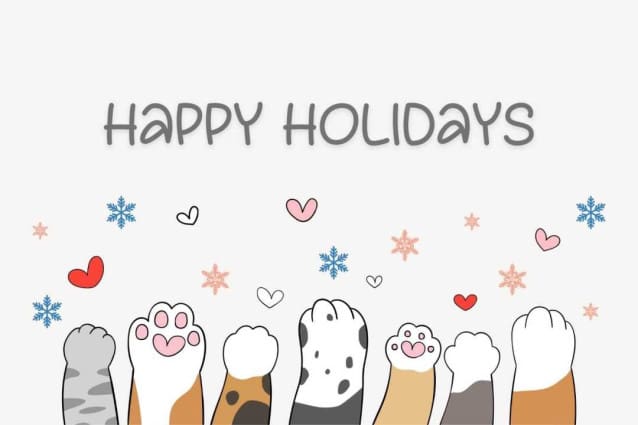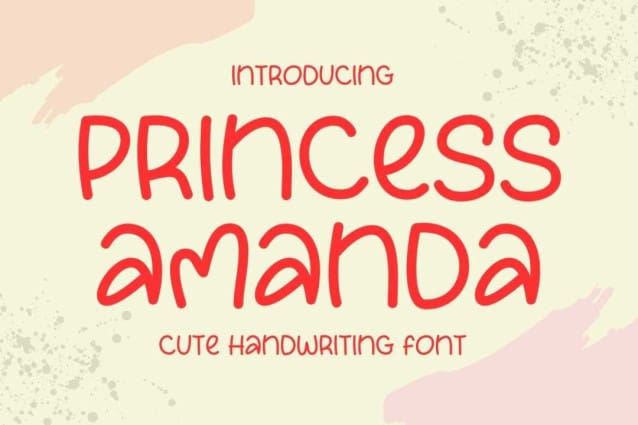
Princess Amanda Font
Princess Amanda Font is a chunky, humorous, and animated handwritten font. With its clean and playful personality, this font will elevate any project you want to create!